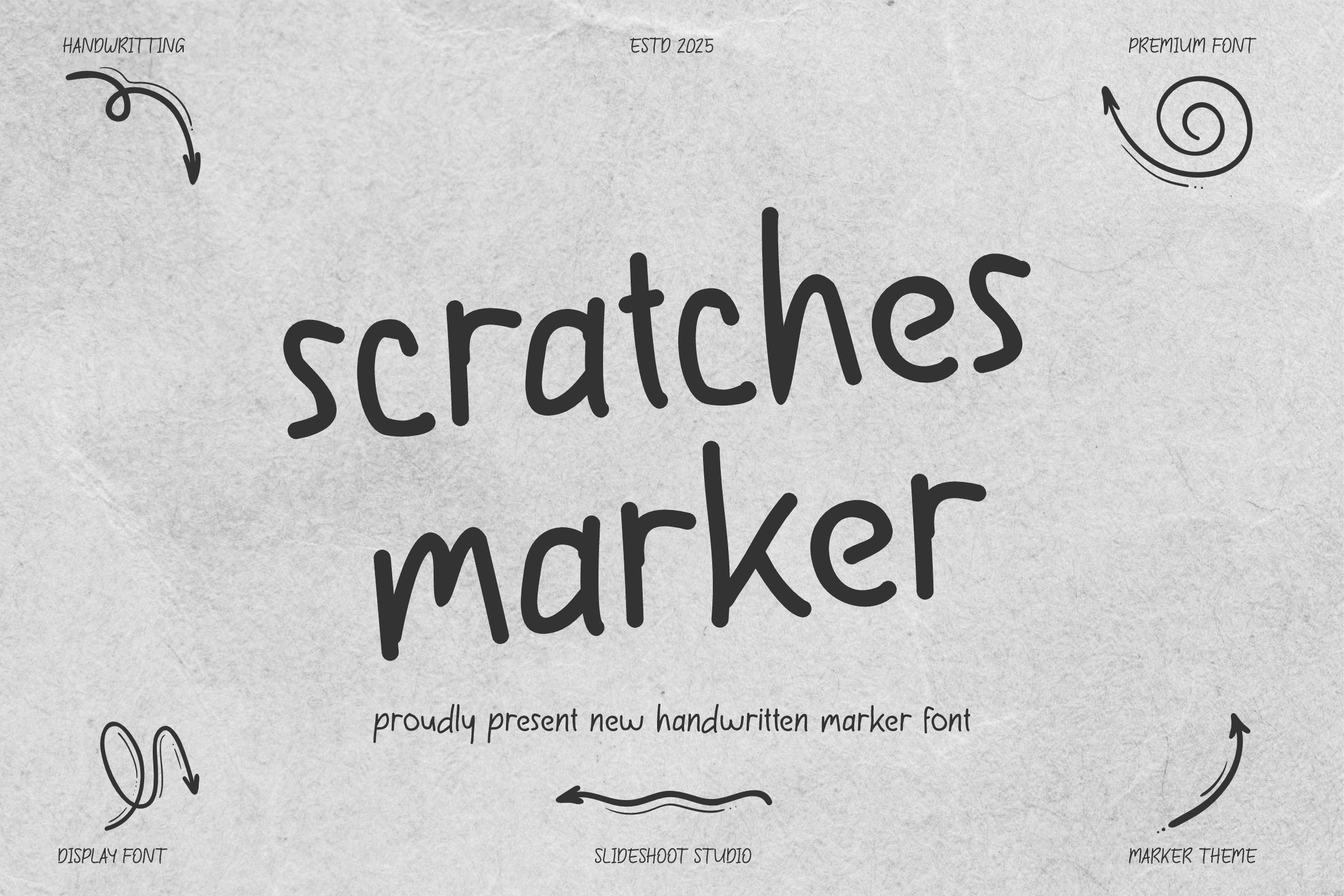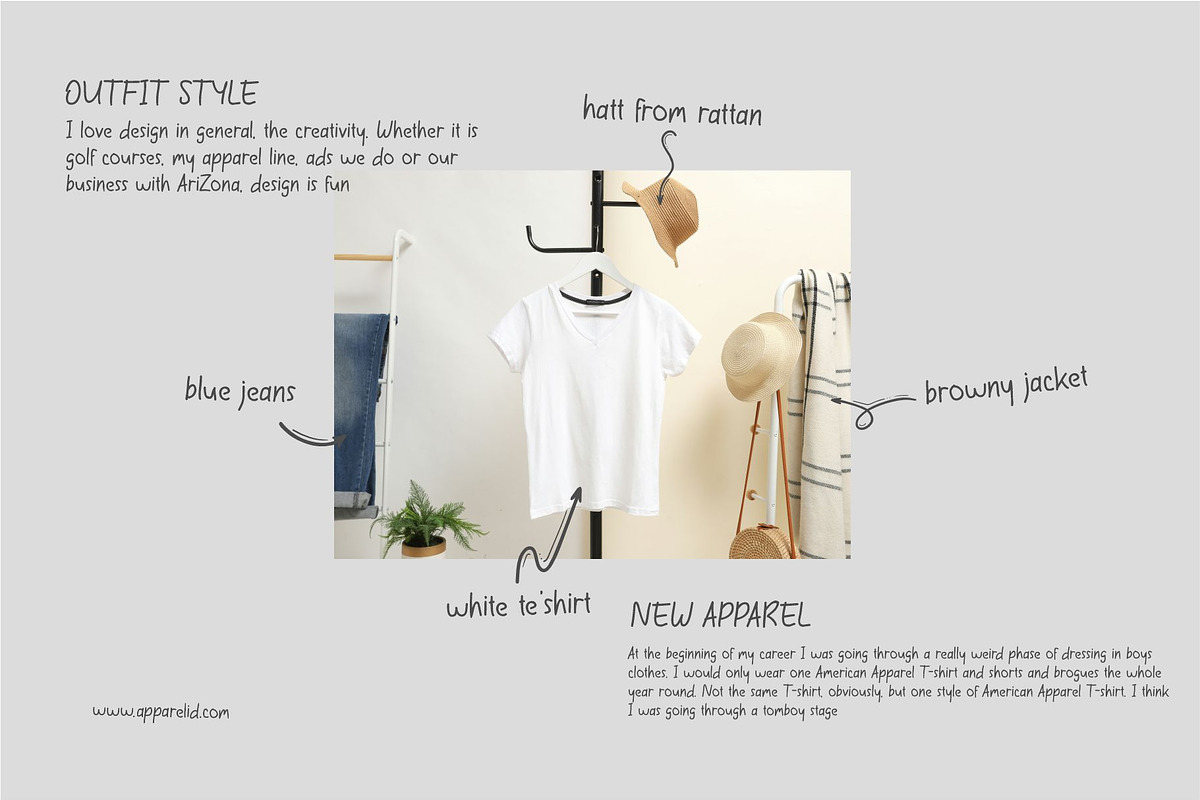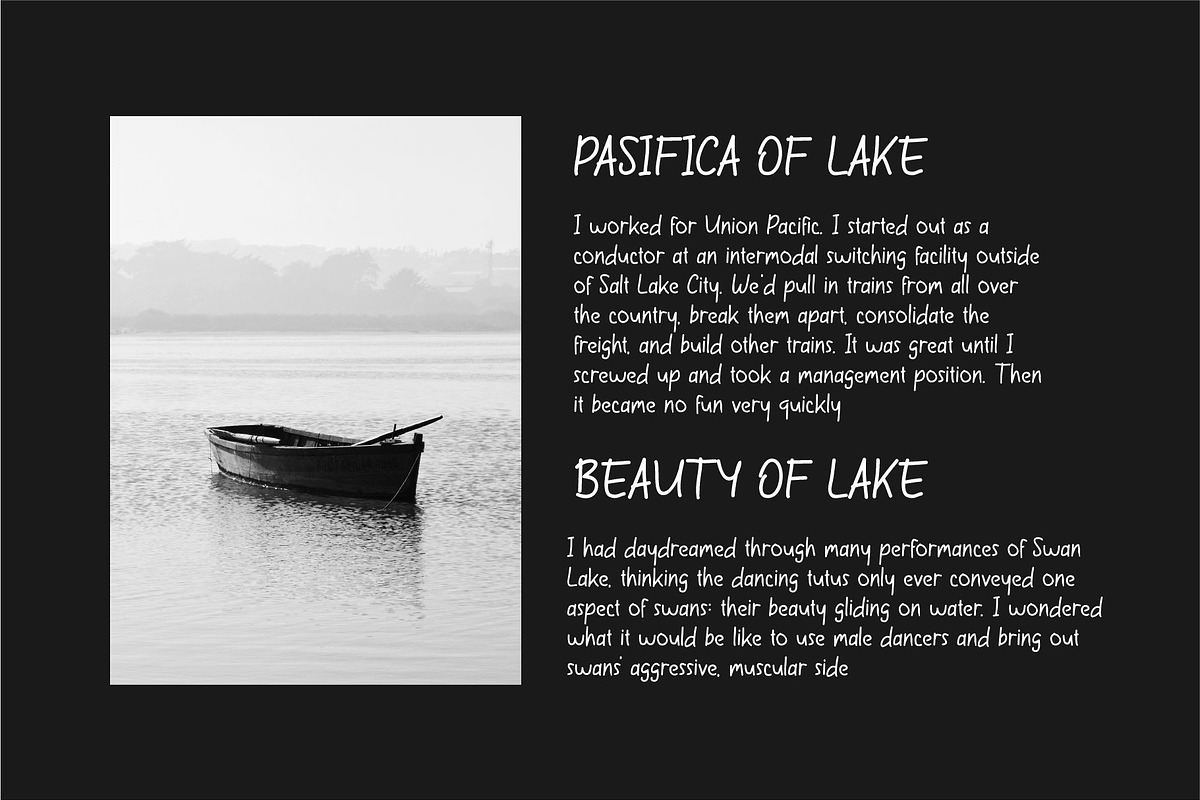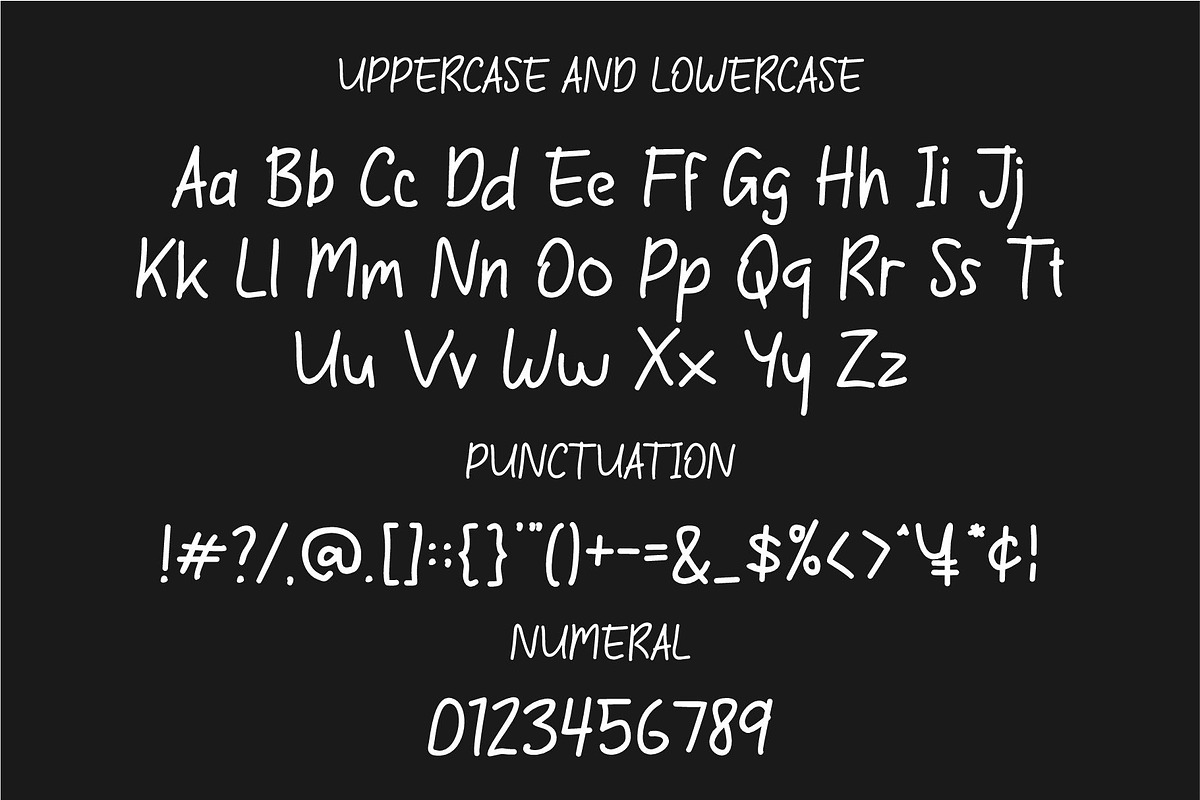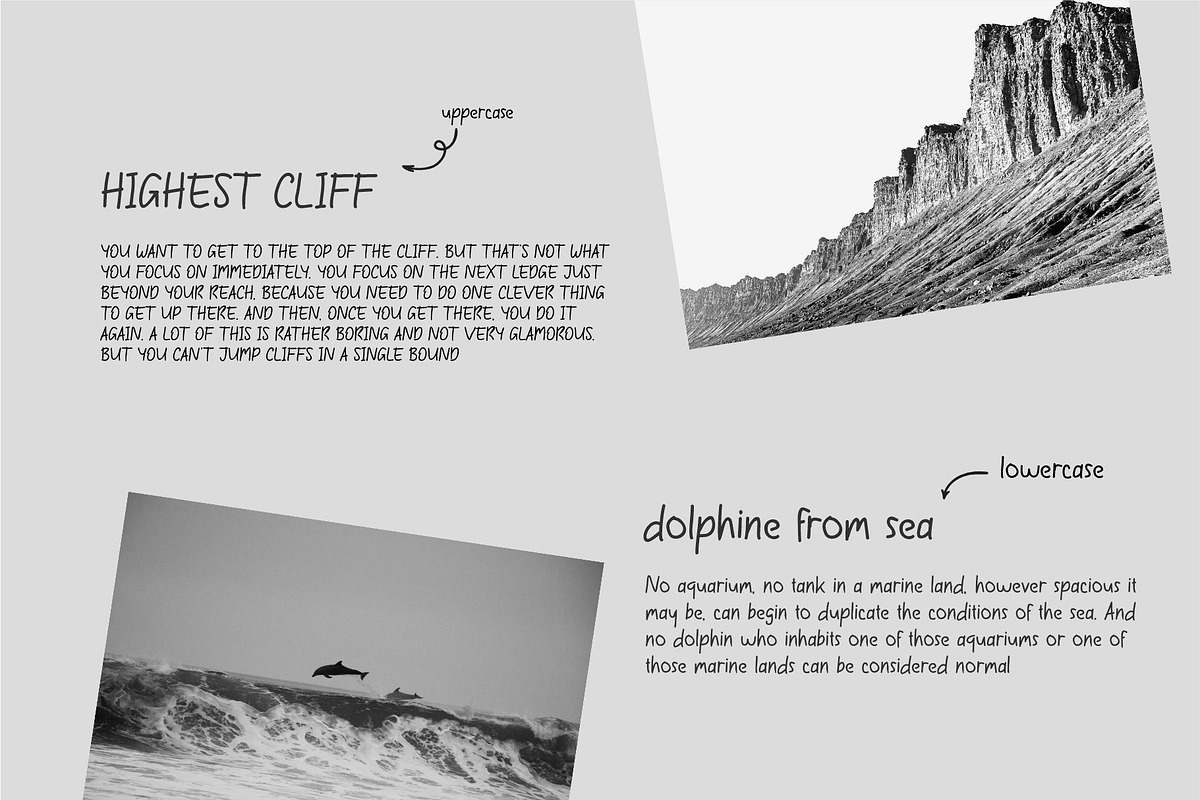
Scratches Marker | Handwtritten Font
Introducing Screthes Marker is handritten Unique Display Font is a modern, trendy, bouncy and cute display font. It has a unique character with wood theme. It is perfect to be combined with invitation card designs, company logos, movie titles, movie names, business cards, book titles, brand names and various other designs.